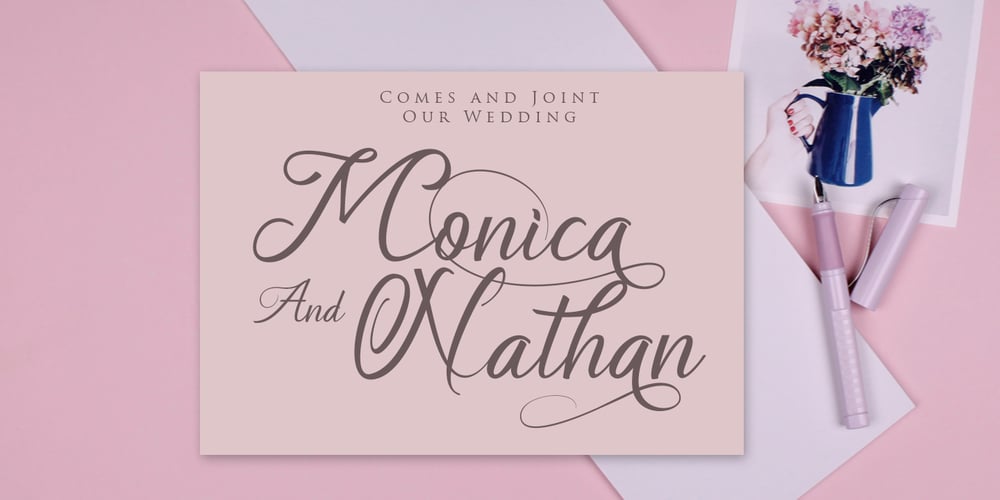
Soulmate Font Family was designed by Sarwo Edhi Prayitno and published by Haksen. Soulmate contains 1 styles and family package options. Introducing Soulmate – an elegant, luxurious and classy script. Soulmate comes with many alternates so you can create a luxury design. I recommend using Adobe to design with this font. The Glyphs menu contains all the alternates. If you have any questions, please contact me for support at : edhi.sarwo@gmail.com